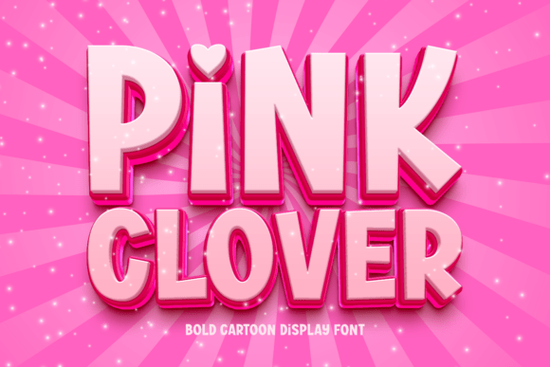
If you are looking for a typeface that brings immediate personality to your work, Pink Clover Font is a strong contender for your next project. This bold, chunky display font combines soft, cartoon-like contours with a powerful silhouette that demands attention. Unlike standard sans-serif options, it offers a distinct bubbly charm that works well for designers, crafters, and print-on-demand sellers who want their visual content to feel approachable yet energetic.
Which designs feel right for this font?
The thick letterforms of this typeface make it ideal for headlines and title tracks where visibility is key. Imagine placing this font on a vibrant banner or a high-impact poster; the cheerful shapes act almost like stickers on paper, instantly catching the eye. For creators working on playful apparel or custom t-shirts, the blend of soft edges and heavy weight adds a youthful touch that appeals to younger audiences. If you are designing book covers or logo concepts that need a modern, cute aesthetic, this choice provides a unique voice compared to more rigid typefaces.
Sometimes you might want something similar that feels slightly bouncier or rounder. For example, checking out Boom Bounce can help you compare how different weights react to colorful backgrounds. While Pink Clover sits firmly in the bold category, understanding the nuances helps you select the right texture for your specific brand identity. It acts as the perfect sticker font, making it incredibly easy to craft shareable, scroll-stopping content for Instagram or Pinterest without needing complex graphic effects.
Can you trust this for professional branding?
Yes, but only for specific niches. Because it exudes a distinct, bubbly personality, this font works exceptionally well for brands that feel cute, modern, and full of life. However, if you are building a corporate website or legal firm identity, you might prefer a sharper serif or a cleaner geometric type. In those cases, looking at Royal Ornate shows you what happens when you switch to a heavier, more formal structure. Using Pink Clover for a bakery, a kidswear shop, or a creative blog aligns perfectly with the message, while keeping it separate from sectors that require a sterner tone.
Versatility remains its strongest asset. Whether you need a logo font or a social media typeface, the character set handles short phrases and titles effectively. You won't struggle to read it on small packaging, as the thickness ensures legibility across various materials. Just ensure the spacing complements the width of the letters so the design doesn't feel cluttered. This balance of approachability and strength makes it a standout tool for small businesses aiming to inject fun into their marketing campaigns.
How does it handle different project types?
Beyond merchandise, this font shines in editorial layouts and digital art headers. Its thick, cheerful letterforms make it an absolute standout for everything from eye-catching headlines to title tracks. When paired with simple colors, the white space around the letters allows the shape to breathe. For users exploring alternative bold options, Holla Molli offers a similarly punchy display style worth testing for contrast.
Another option to consider if you prefer something softer is Beautiful Dainty Romance, which provides a delicate counterpoint to this chunky style. Conversely, if you need a slightly edgier modern feel, comparing your current selection against Eris helps clarify the visual hierarchy you want to achieve. Each style serves a different mood, ensuring you never settle for a generic typeface when a custom voice fits better.